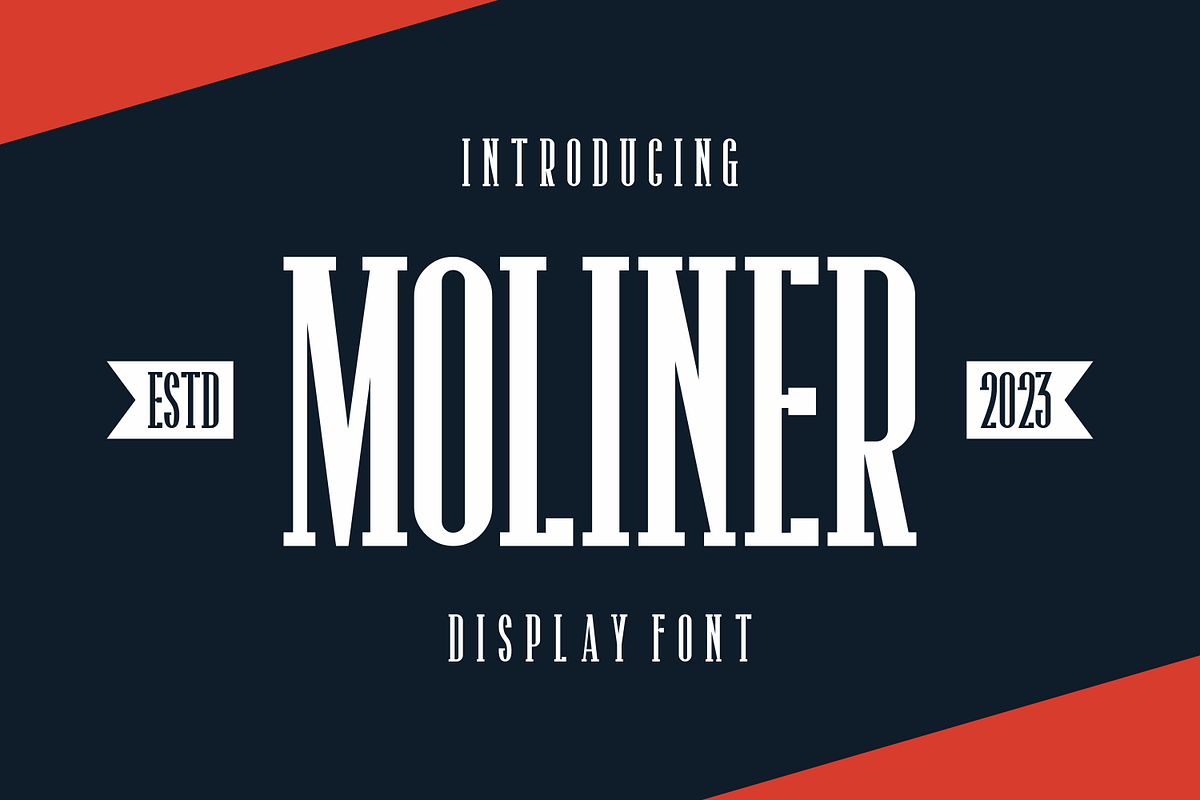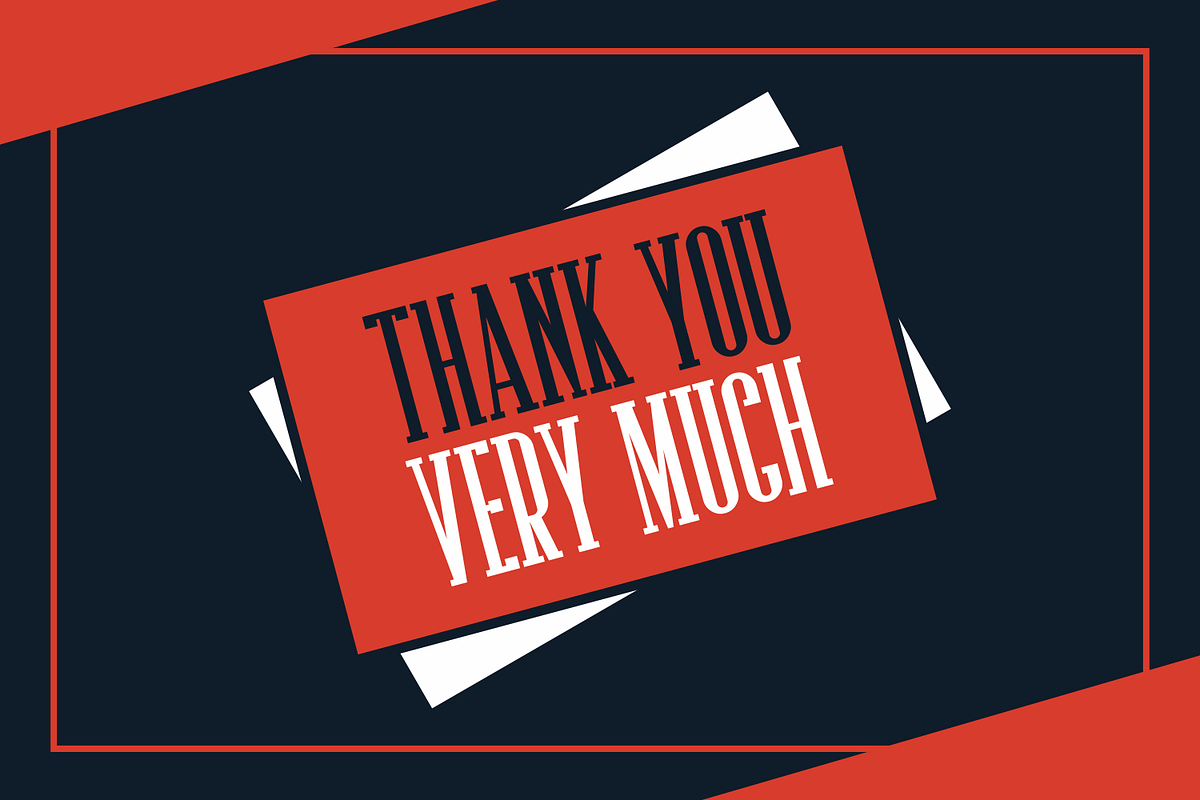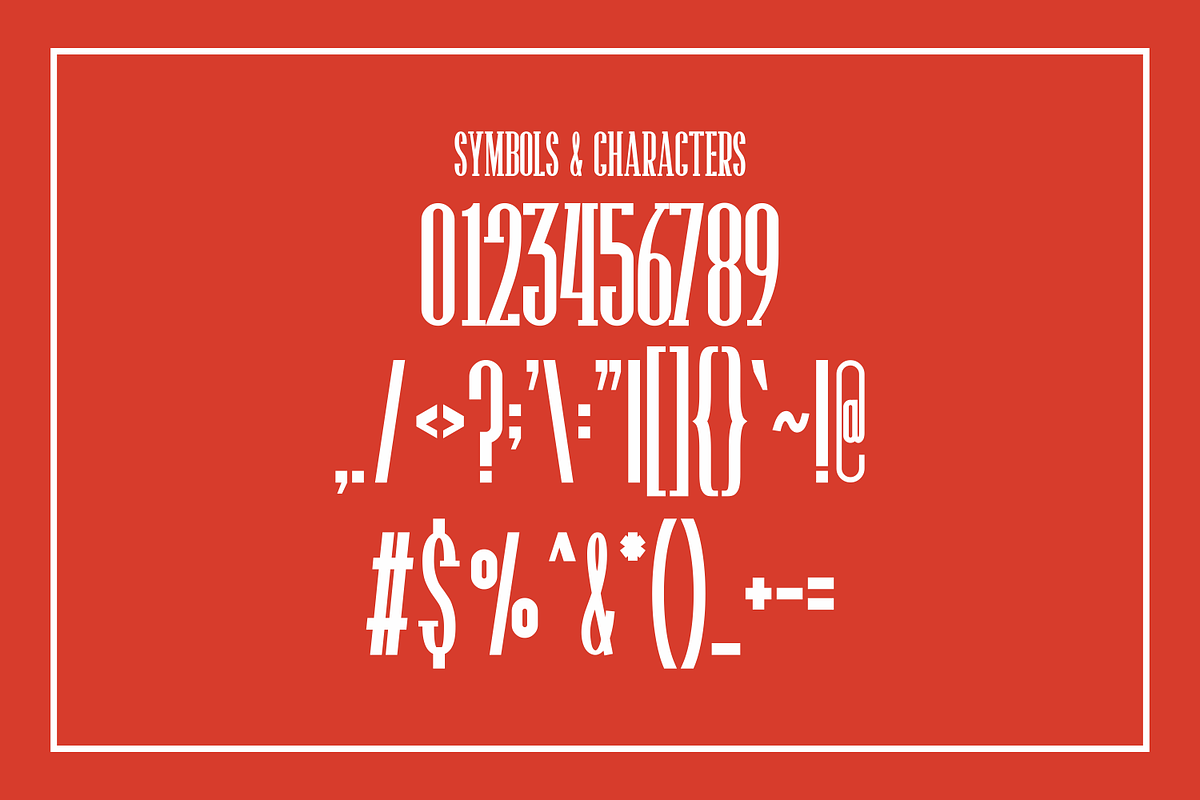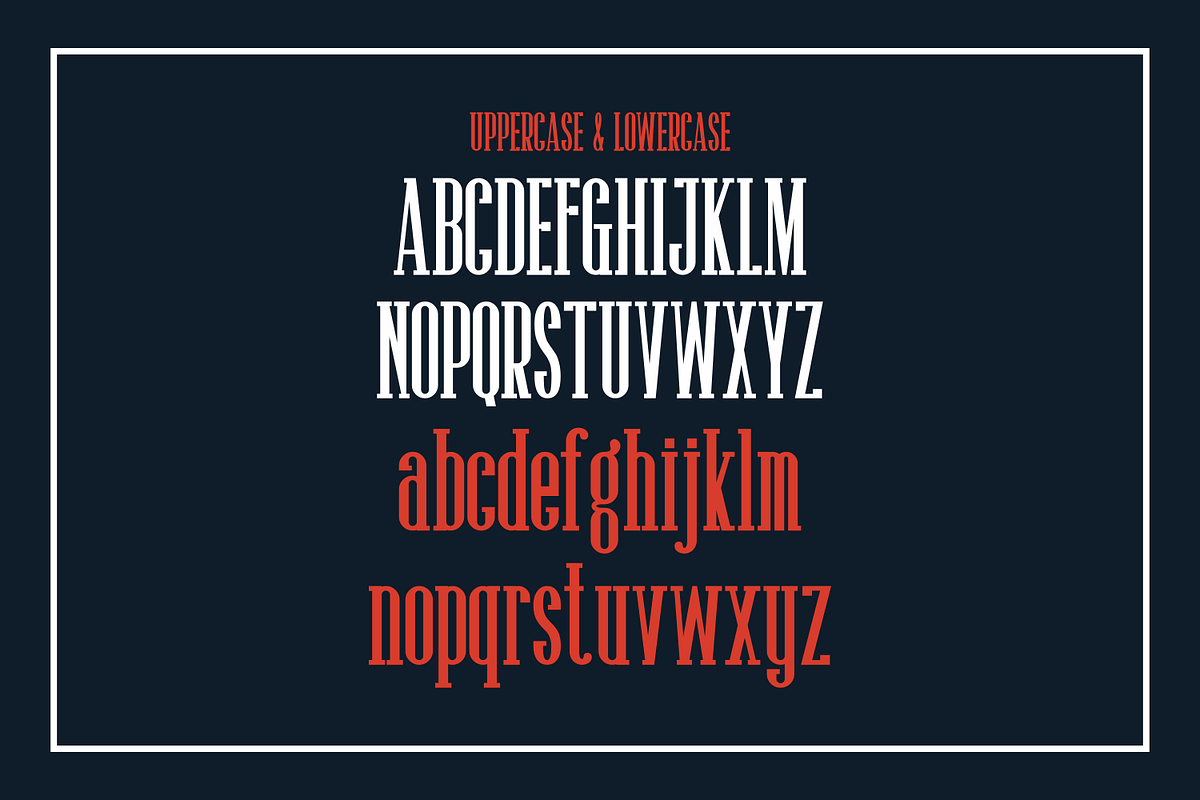
Moliner
Moliner Perfectly suited on print/screen. it’s perfect for Branding, name card, poster, logo, magazine, cover, banner, t-shirt and headers, or even large-scale artwork.